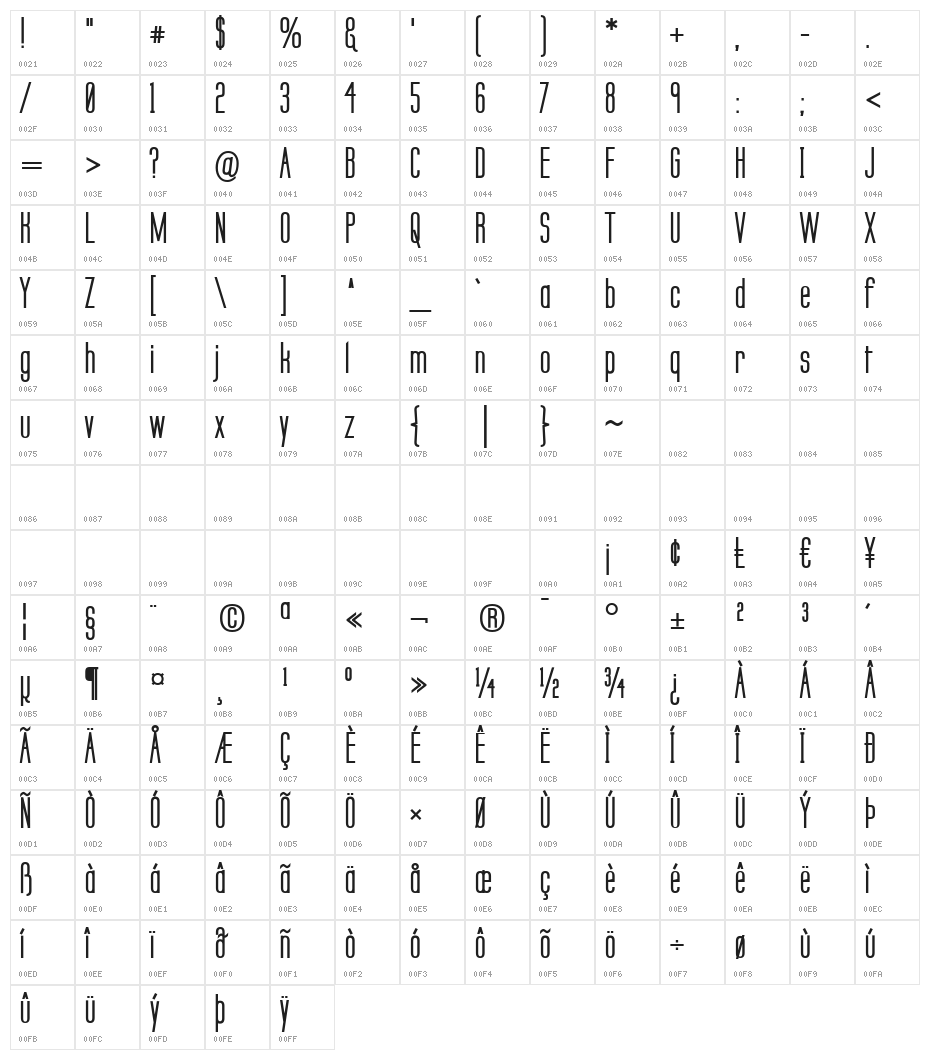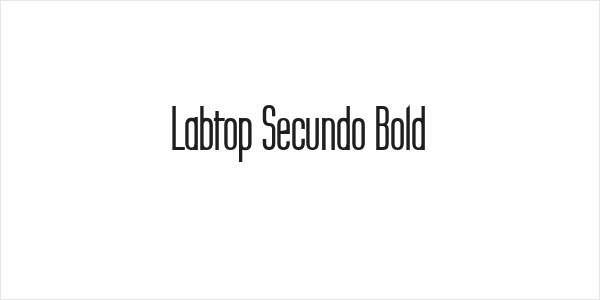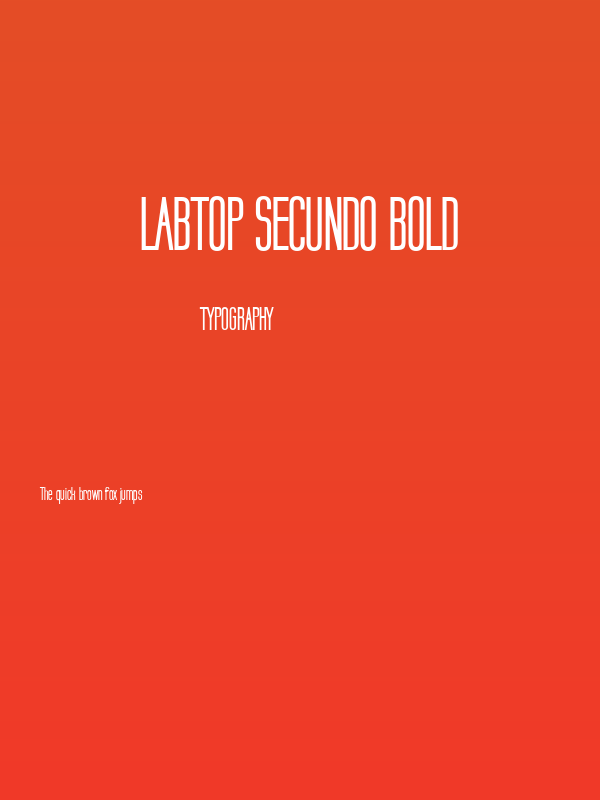
Labtop Secundo Bold Font
Labtop Secundo Bold Description
This font features a tall, narrow design with a modern and sleek appearance. The characters are elongated, giving it a distinctive and elegant look. The uppercase and lowercase letters maintain a consistent height, enhancing readability while retaining a unique style. The numerals are similarly elongated, matching the overall aesthetic of the alphabet. Special characters are well-integrated, maintaining the font's cohesive appearance. The clean lines and minimalistic design make it suitable for contemporary projects, where a bold yet refined statement is desired.
| Proposed Projects | Ideal for modern branding, fashion magazines, posters, and digital media where a bold, stylish statement is needed. |